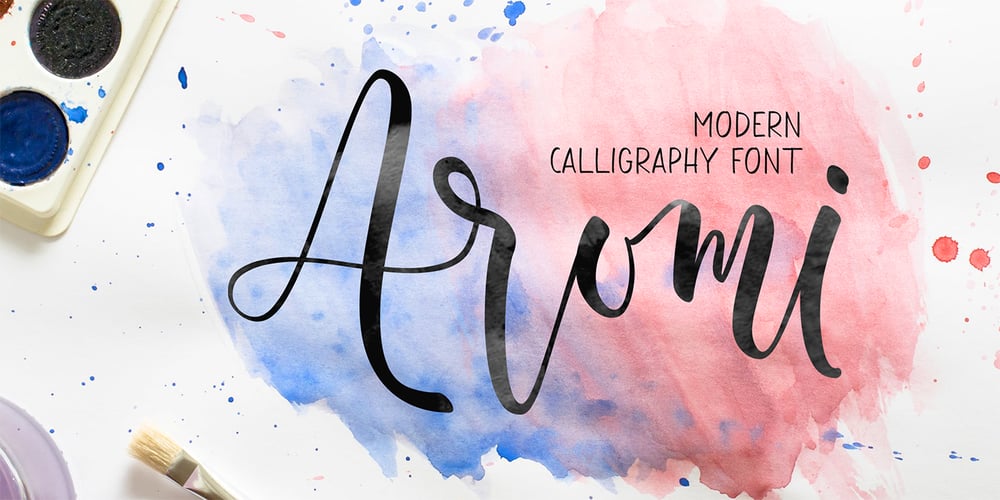
Aromi Font Family was designed by Eko Kurniawan and published by Atom. Aromi contains 2 styles and family package options. Aromi is a modern and cool script font with amazing swashes. Use it to turn any design project into a standout! Just perfect for those who love to create whimsical collages, e-newsletters, web banners and quotes to skyrocket on social media, especially Pinterest! Have a great day! Thank you ๐